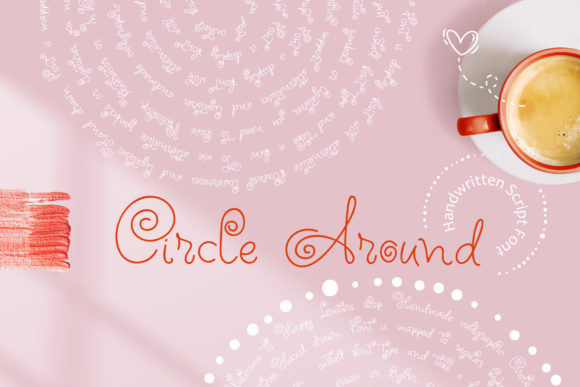
Welcome to the world of Circle Around Font, where inspiration and creativity dance together! This enchanting handwritten font is a masterpiece of modern grace, crafted to capture the hearts of those who seek unique and playful designs. Circle Around belongs to the script font family, renowned for its elegant and expressive characters.
With its beautifully rounded swashes, Circle Around dances across your designs like a playful melody. Its contemporary charm adds a touch of whimsical sophistication to logos, posters, branding, invitations, and so much more. Imagine the joy it will bring to children's apps and games, where its friendly curves and soft edges create a warm and inviting atmosphere.
Circle Around is not just a font; it's an experience. It's an ode to childhood, where imagination knows no bounds and laughter fills the air. Its delicate strokes evoke a sense of wonder and curiosity, encouraging young minds to explore their creativity.
Behind the scenes, Circle Around is a font you can rely on. It's carefully crafted to ensure crisp and clear rendering at any size. Whether you're designing for print or digital, Circle Around will make your words shine.
So, step into the enchanting world of Circle Around Font and let your designs take flight. With its captivating curves and playful spirit, it's the perfect choice for adding a touch of magic to any project.